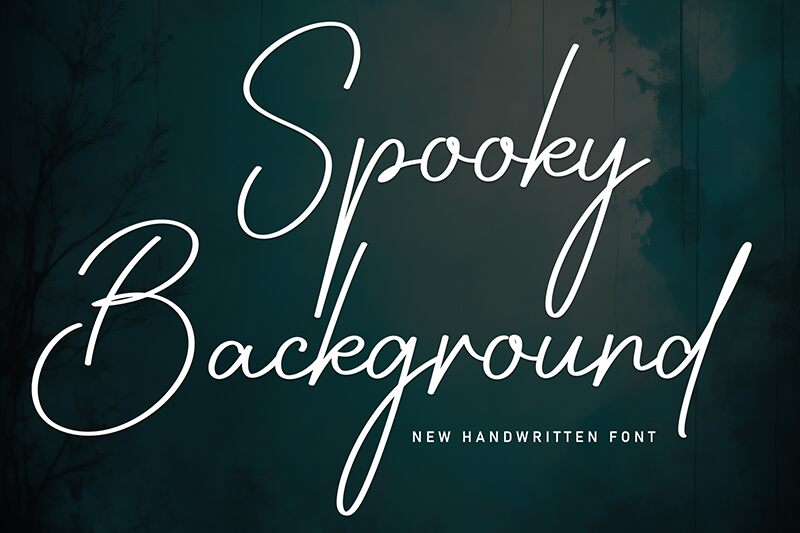
Spooky Background
Spooky Background font by Scratchones is a free handwritten script typeface that feels like a note scrawled in candlelight. Its tall, looping letters and slightly scratchy strokes give off a ghost-story vibe without losing elegance, so it feels more enchanted than gruesome. The thin, inky lines keep it airy and delicate, letting you layer it over photos, textures, or dark gradients without overwhelming the scene.
Using Spooky Background font, you can bring a whispery, mysterious tone to Halloween invitations, horror-themed posters, book covers, spooky social media graphics, YouTube thumbnails, and eerie branding experiments. This free font shines when used large as a headline or logotype, then paired with a clean, simple sans-serif for supporting text. Keep plenty of breathing room around it, and its haunted, handwritten charm really comes alive.